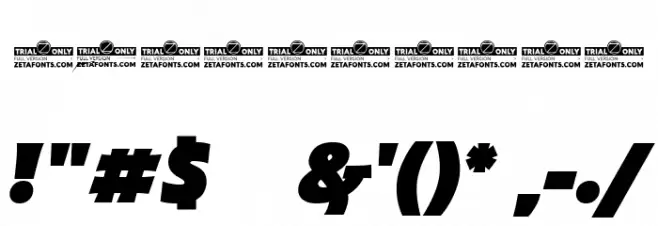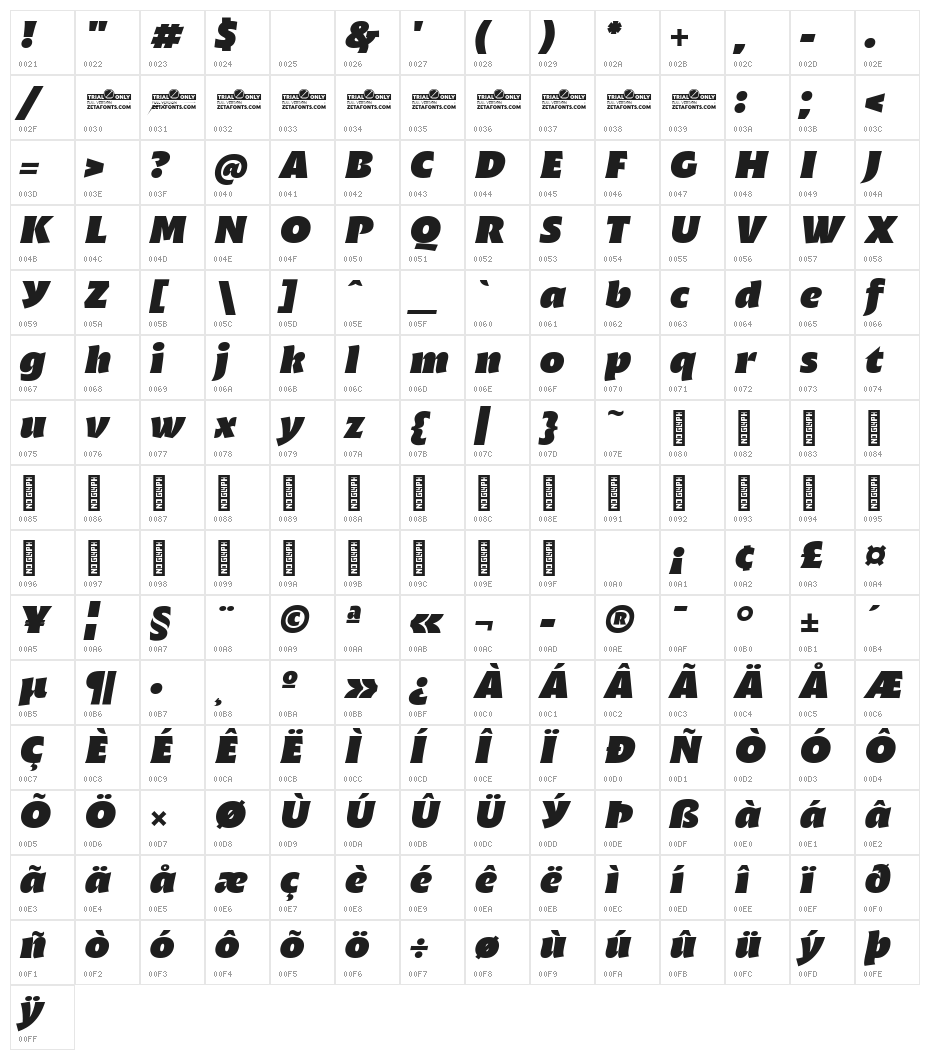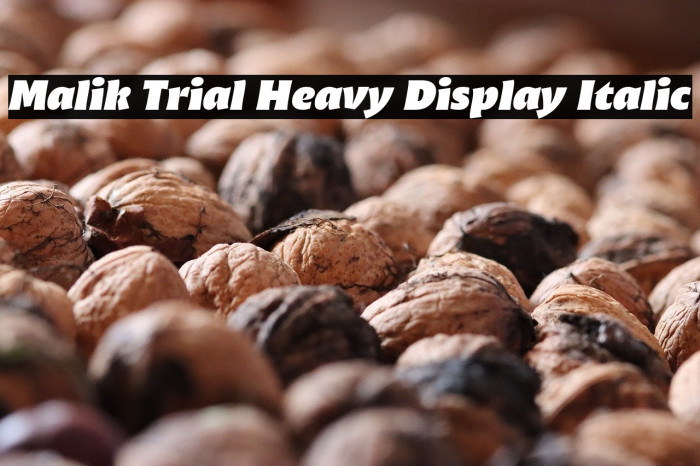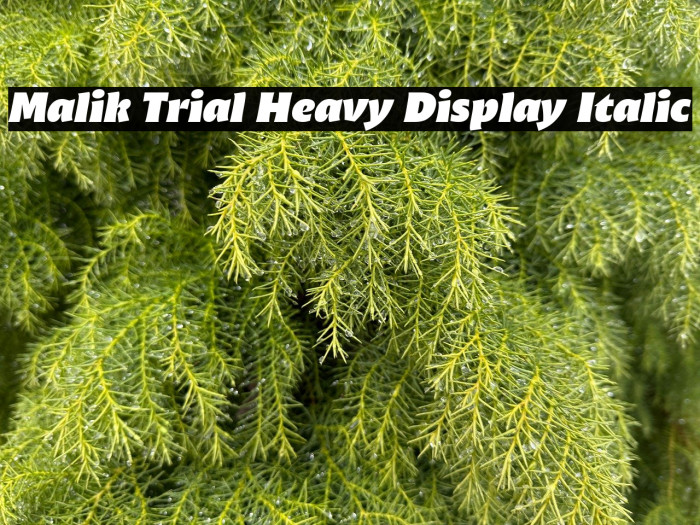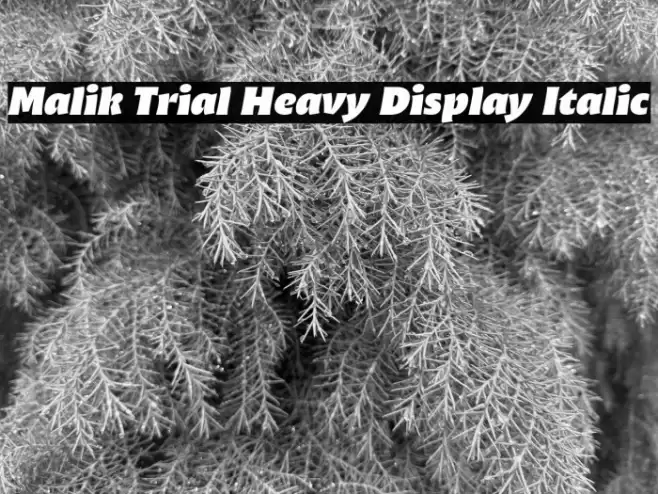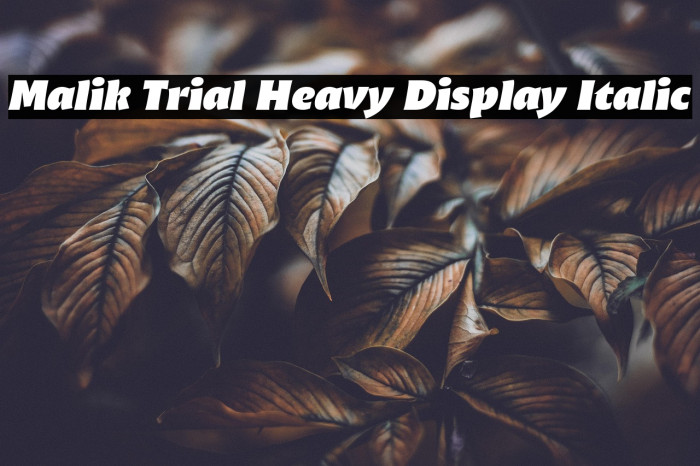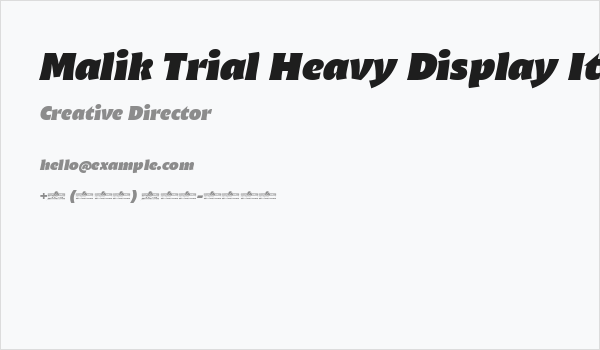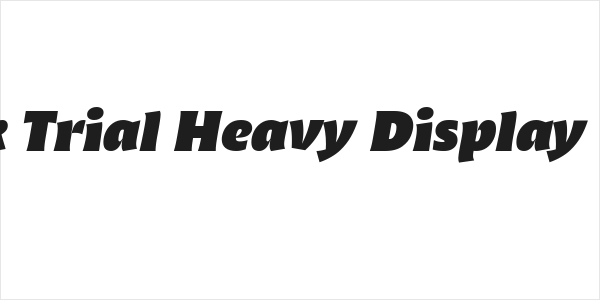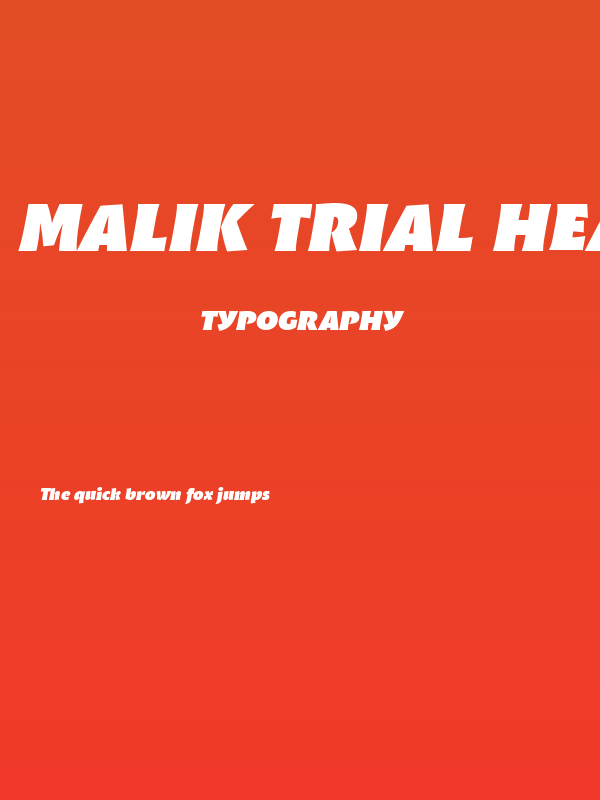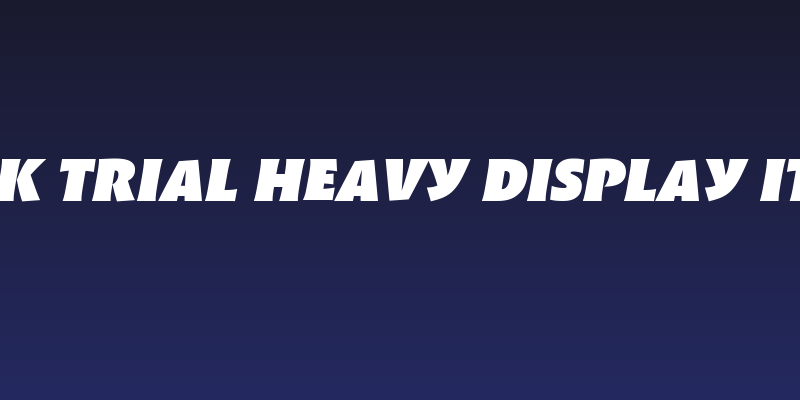
Malik Trial Heavy Display Italic Font
Malik Trial Heavy Display Italic Description
This font features a bold and dynamic style with a heavy weight and italic slant, giving it a strong and impactful presence. The characters are designed with a slight forward tilt, enhancing the sense of movement and energy. The strokes are thick and consistent, providing a high contrast that makes each letter stand out distinctly. The uppercase and lowercase letters maintain a cohesive look, with rounded edges and smooth curves that add a touch of elegance to the overall design. The special characters are crafted to match the boldness and style of the alphabet, ensuring a uniform appearance across all text elements.